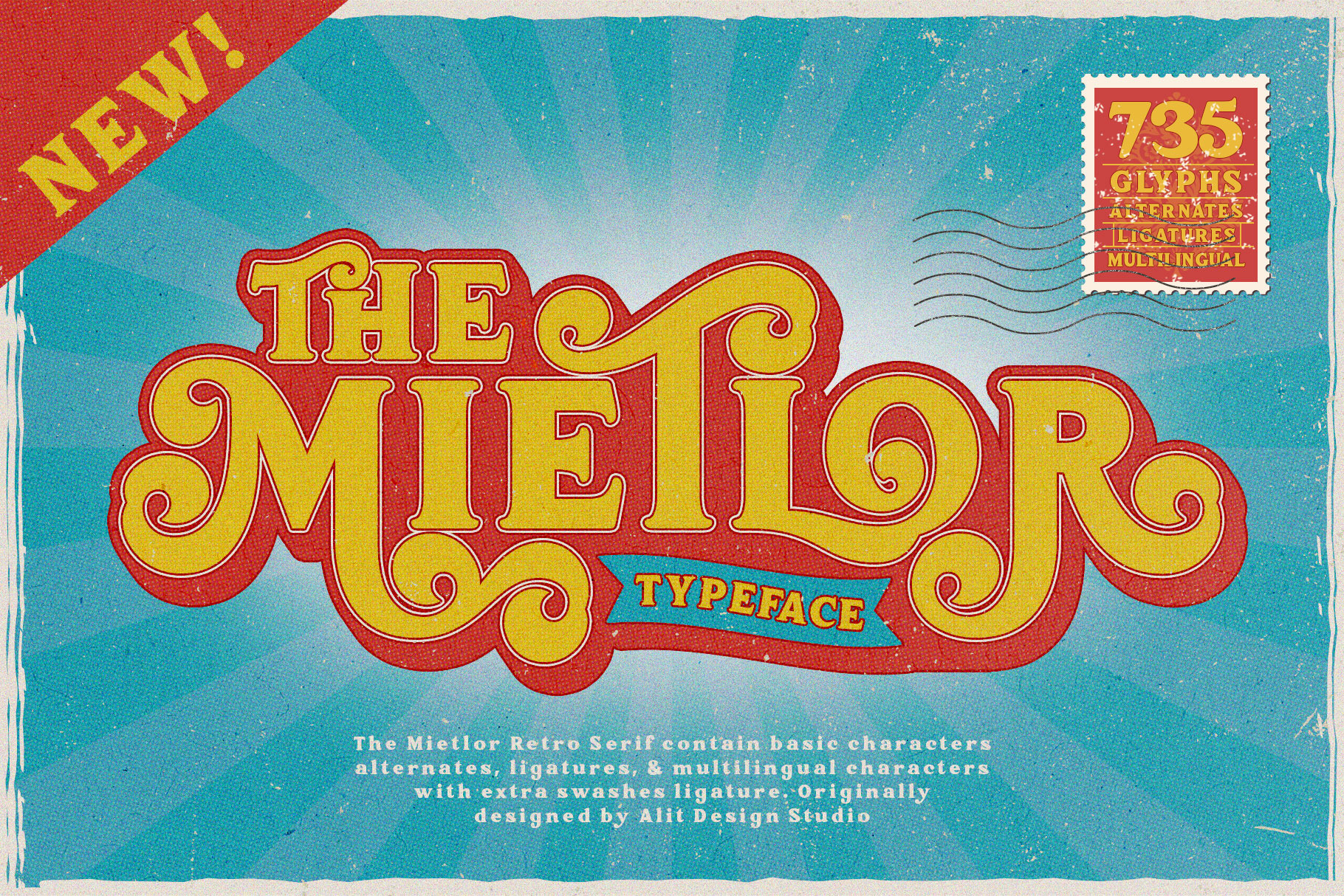
Presenting the ✨The Mietlor Typeface✨ by alitdesign.
The Mietlor Typeface is inspired by stylish designs from the 80s to 90s. At that time the font style like "The Mietlor Typeface" had a firm and trendy impression. The Mietlor Typeface has a wide selection of alternative characters and swashes that make it easy to create bold retro-style designs.
The Mietlor Typeface is very suitable for making designs with retro concepts, simple and playful designs, for example making magazine cover designs, music covers, YouTube thumbs, text headers, logotypes and so on with an elegant retort theme. Besides that this font is very easy to use both in design and non-design programs because everything changes and glyphs are supported by Unicode (PUA).
The Mietlor Typeface has a total of 735 glyphs including symbol, multilingual and alternative glyphs.